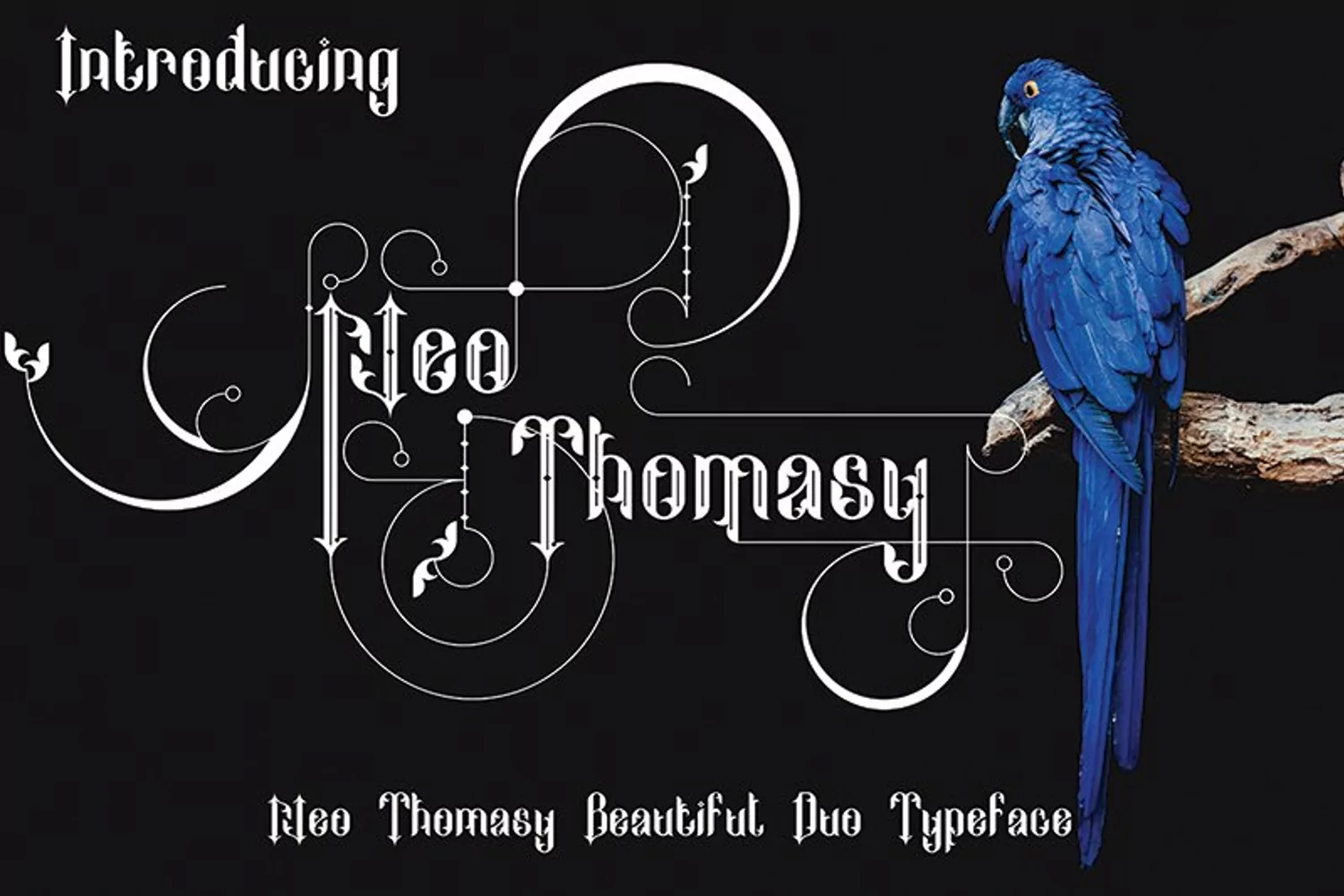
Neo Thomasy - A Unique Duo Typeface Font
Neo Thomasy is a unique font with a variety of alternatives that can be used to produce beautiful and amazing designs